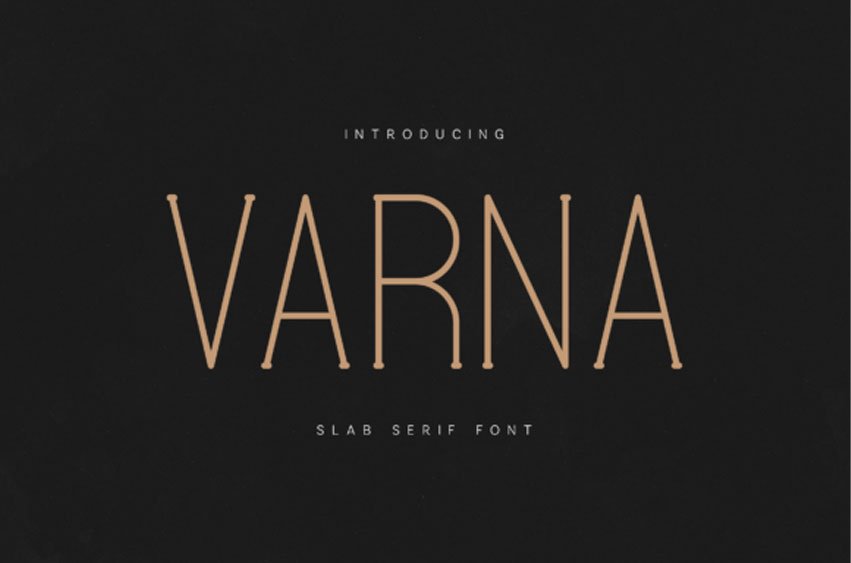
Varna Font
Varna Font Forge a path of visual precision with Varna, a sleek slab serif font that balances architectural structure with refined minimalism. Featuring ultra-thin stems and distinctive rounded terminals (ball serifs), Varna offers a unique “tech-luxe” aesthetic.
Its tall x-height and generous negative space make it an ideal choice for brands that want to communicate innovation, luxury, and clarity.
Best Used For: Premium tech branding, minimalist editorial design, architectural firm identities, and high-concept digital interfaces.